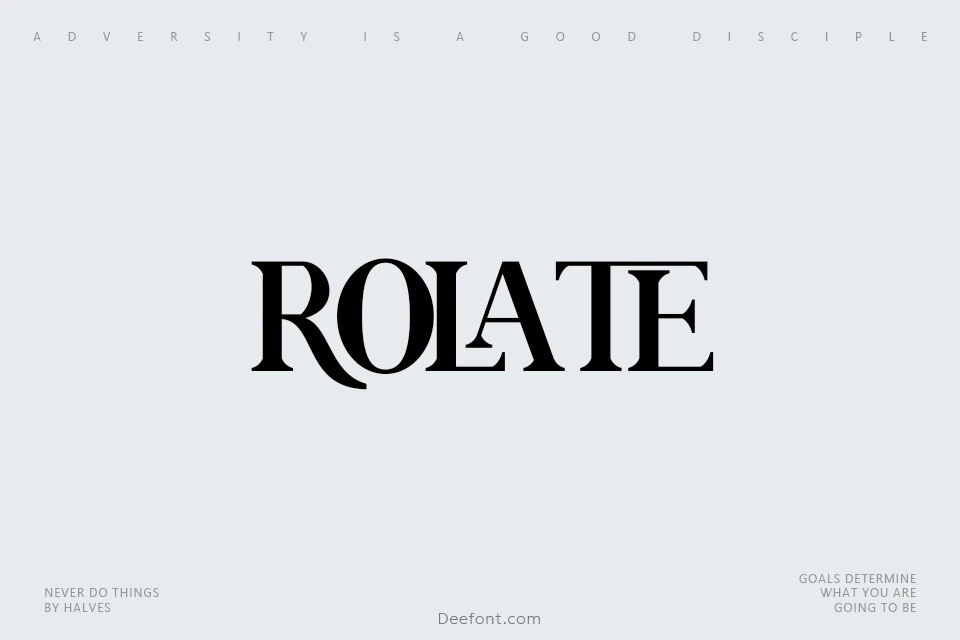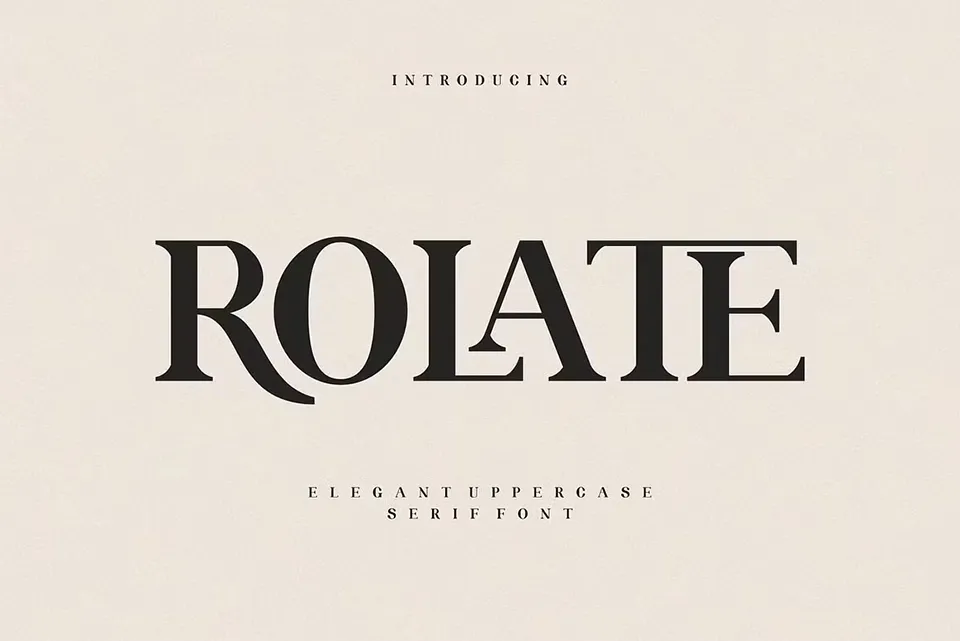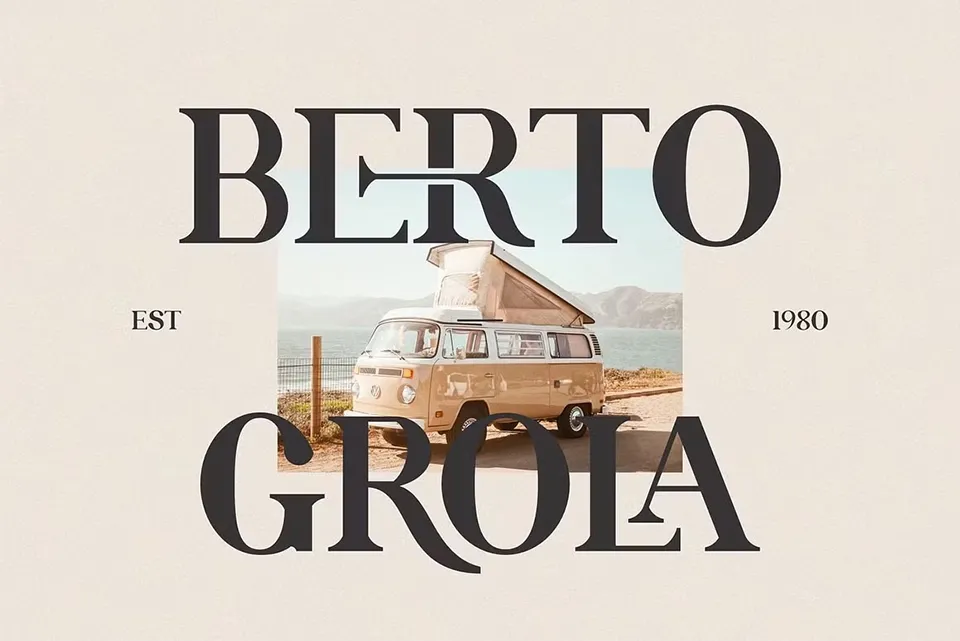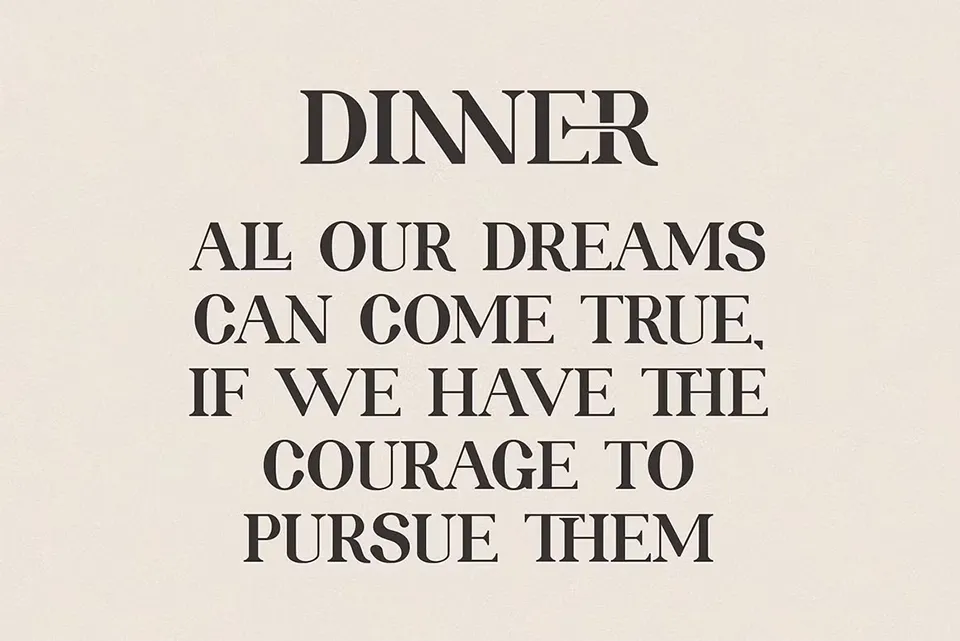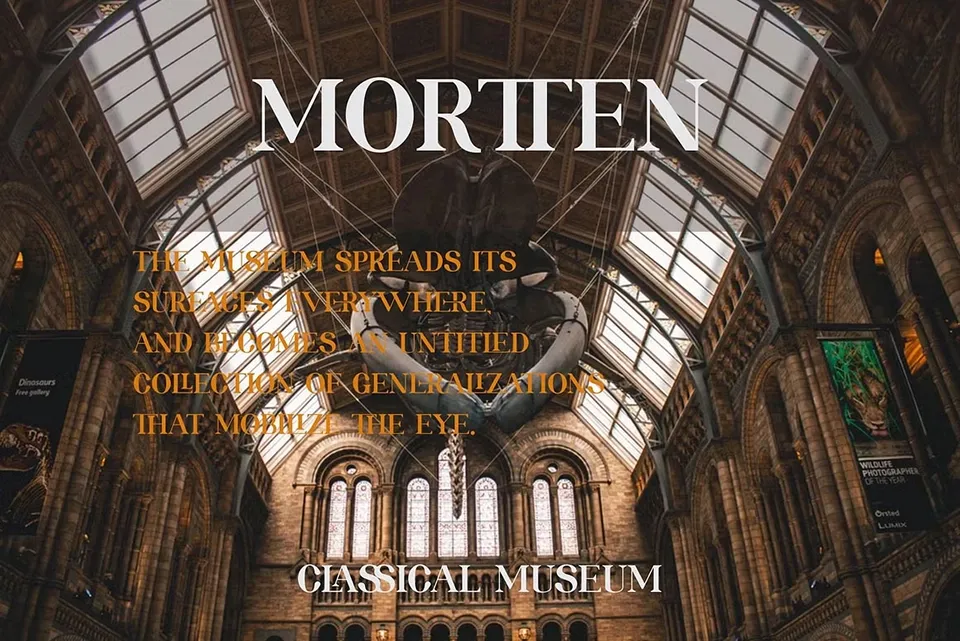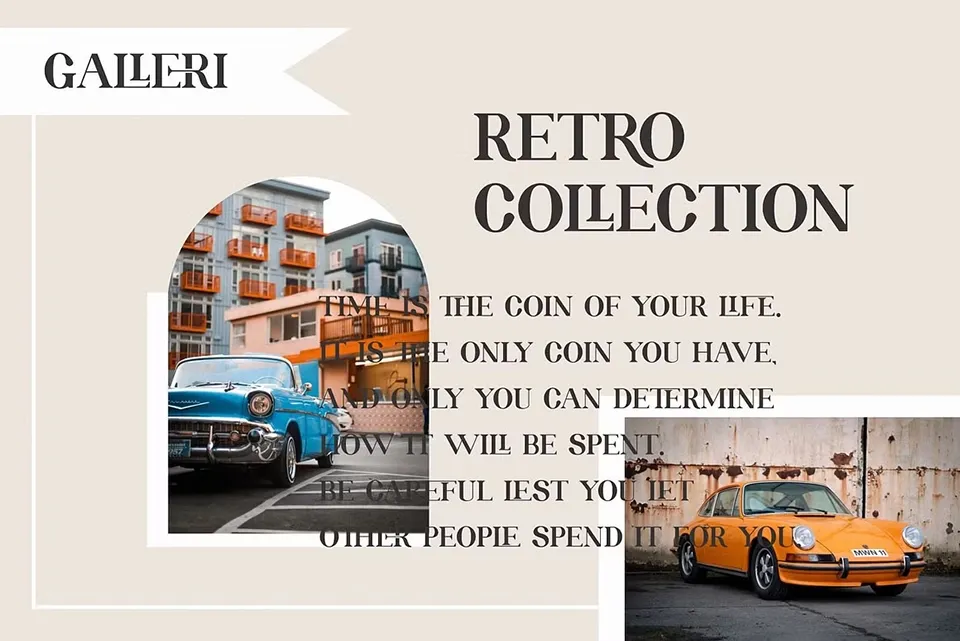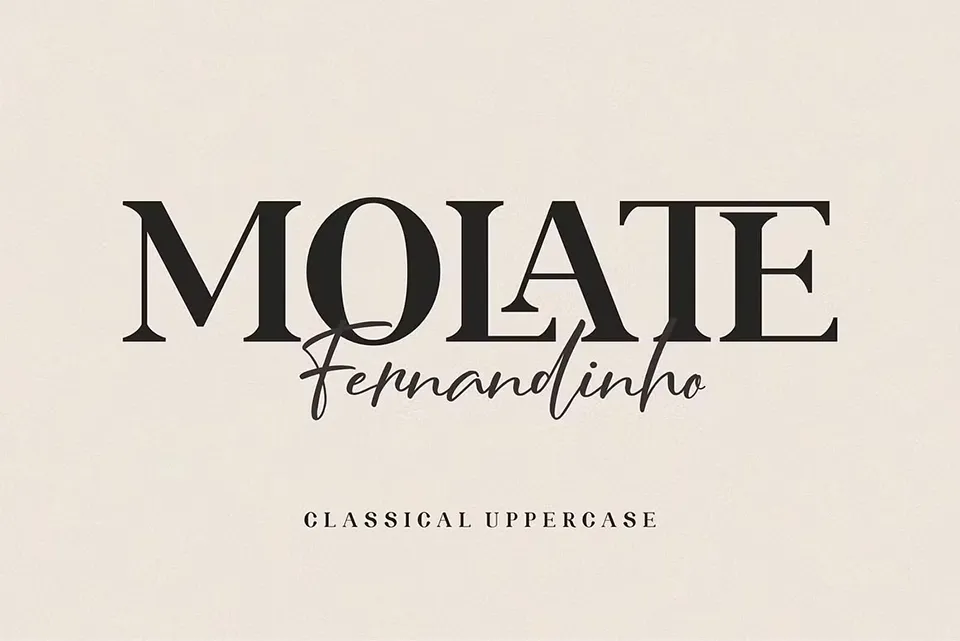
Rolate Font
Rolate Font is an elegant uppercase serif font that combines modern sophistication with a touch of nostalgia. Its refined ligatures and stylish serifs make it ideal for branding, logos, magazine headlines, and social media graphics, offering a timeless look for any creative project.